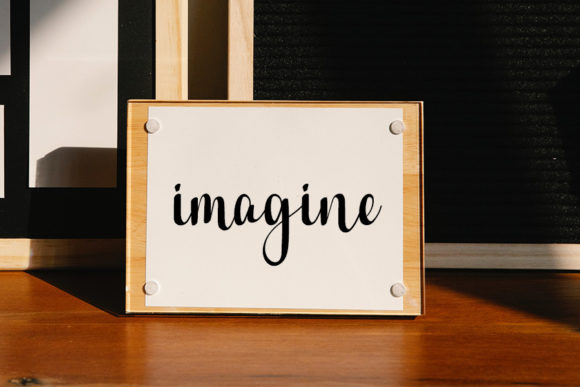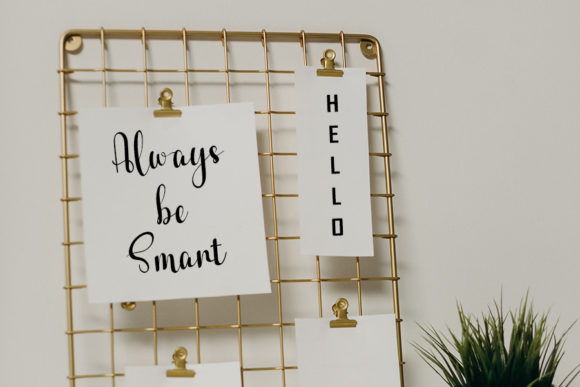
Smileling Font
db-ku.com - Script & Handwritten -- Smileling is a trendy handwritten font with a contemporary atmosphere and impeccable form, inspired by a timeless classic calligraphy.